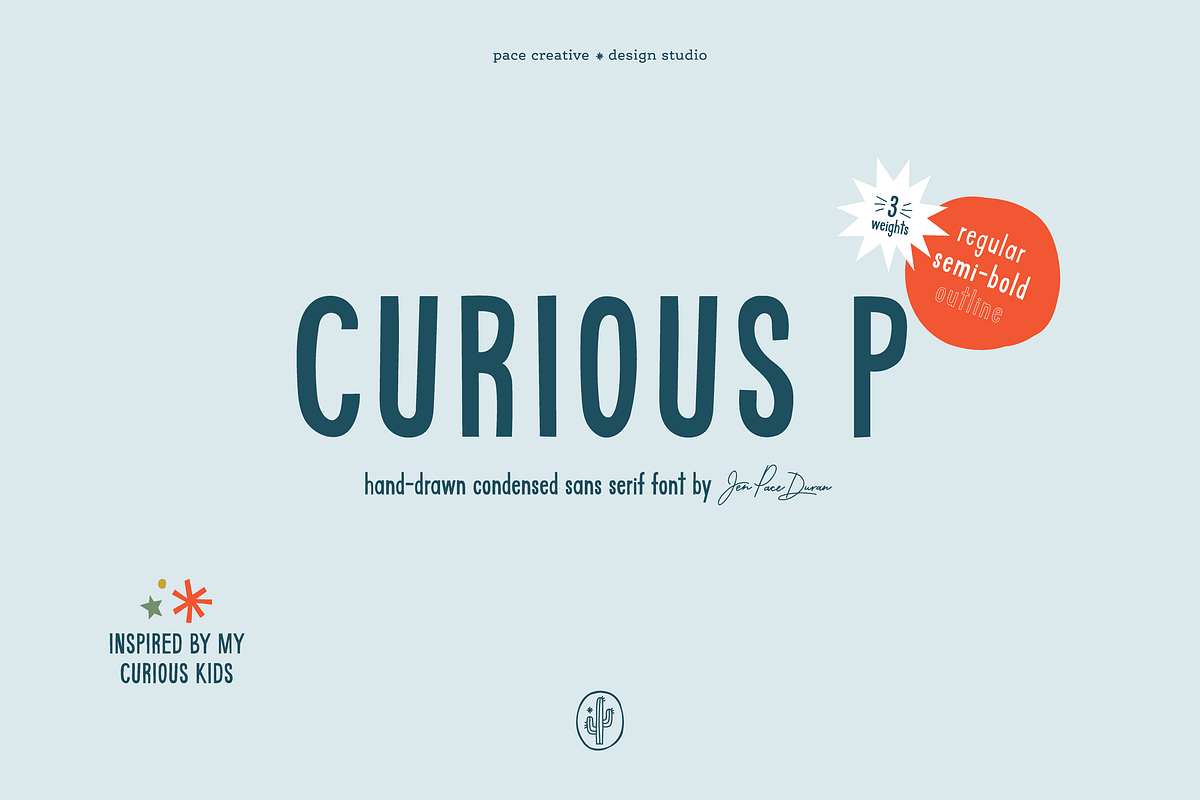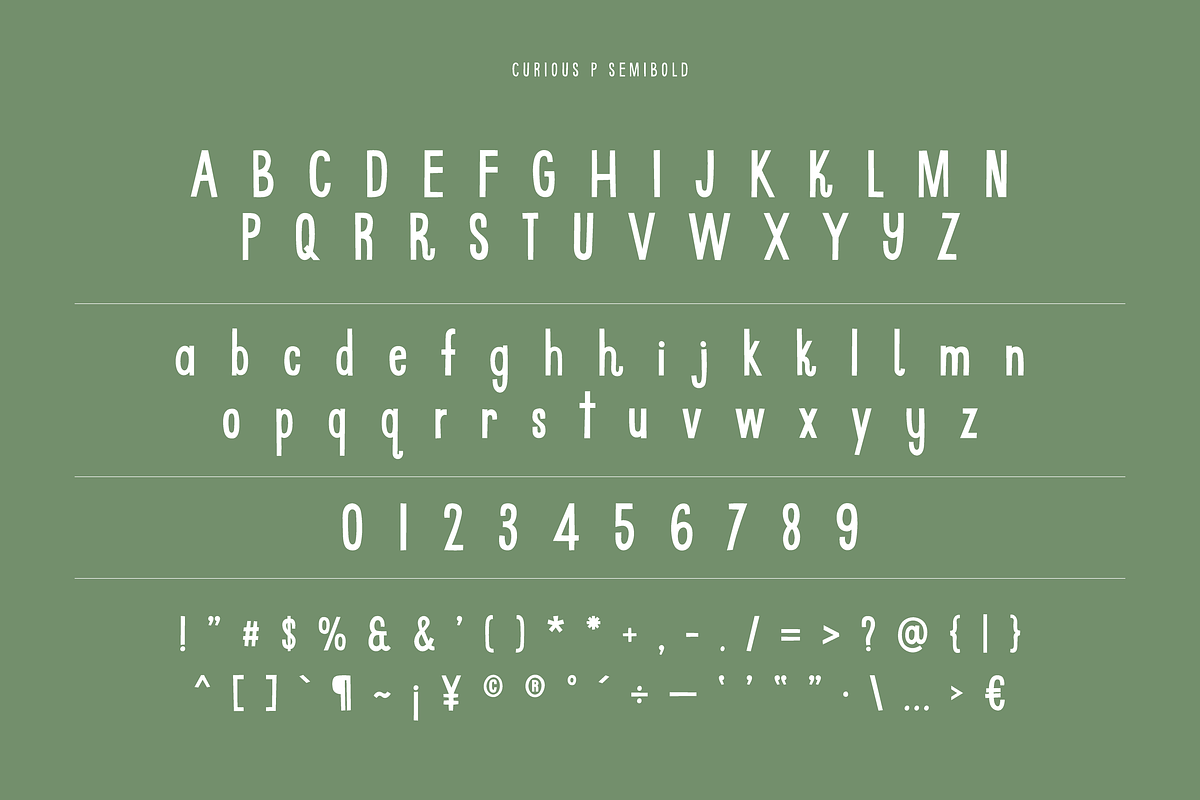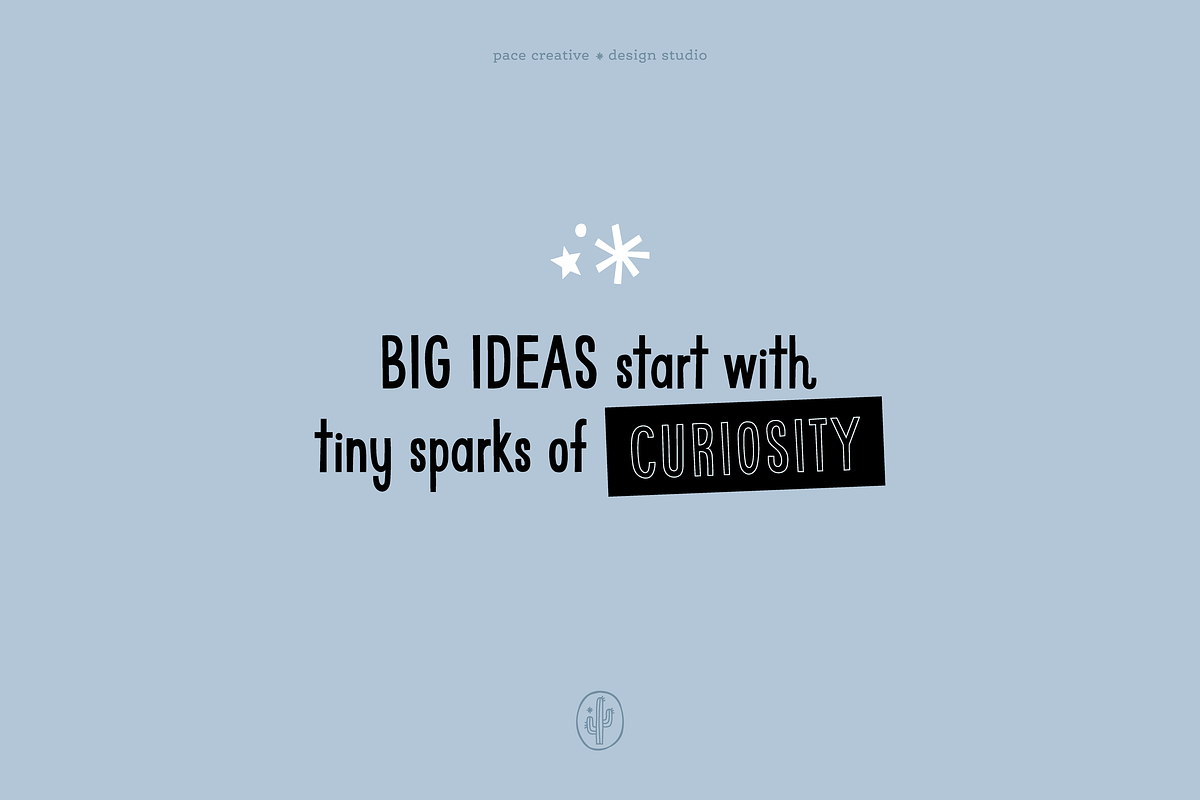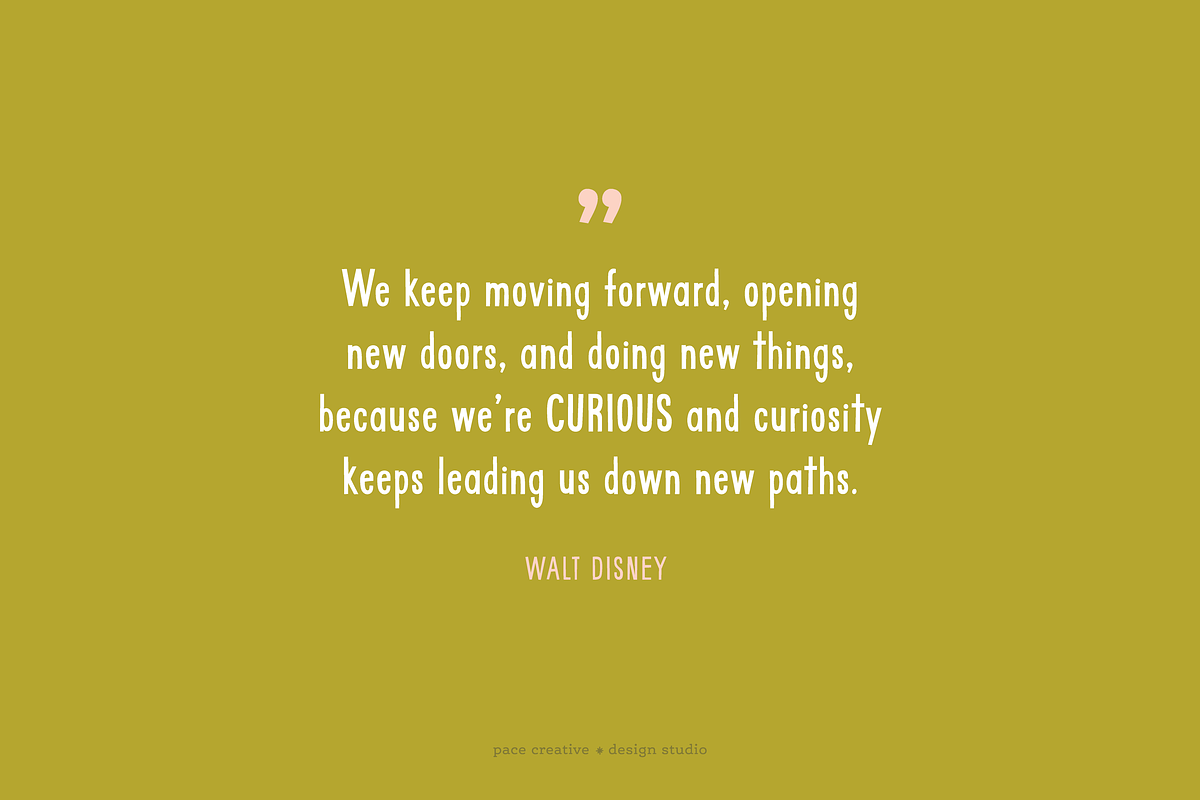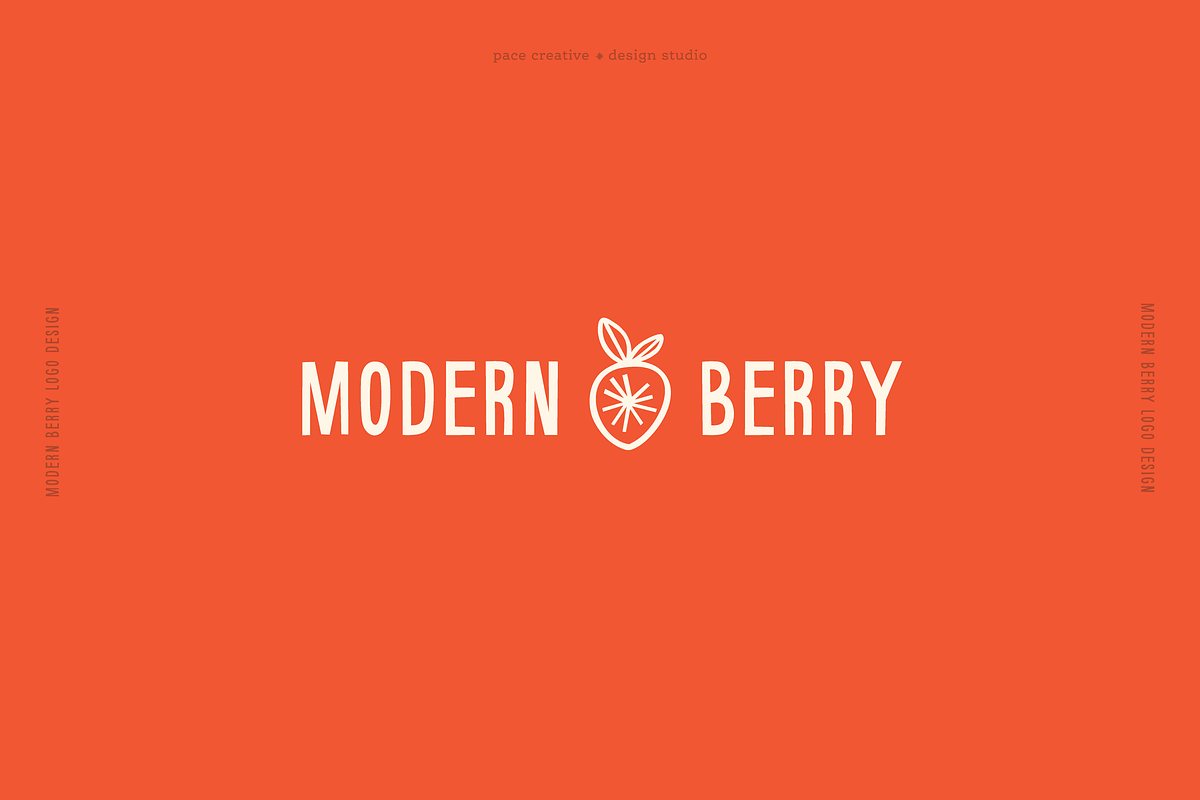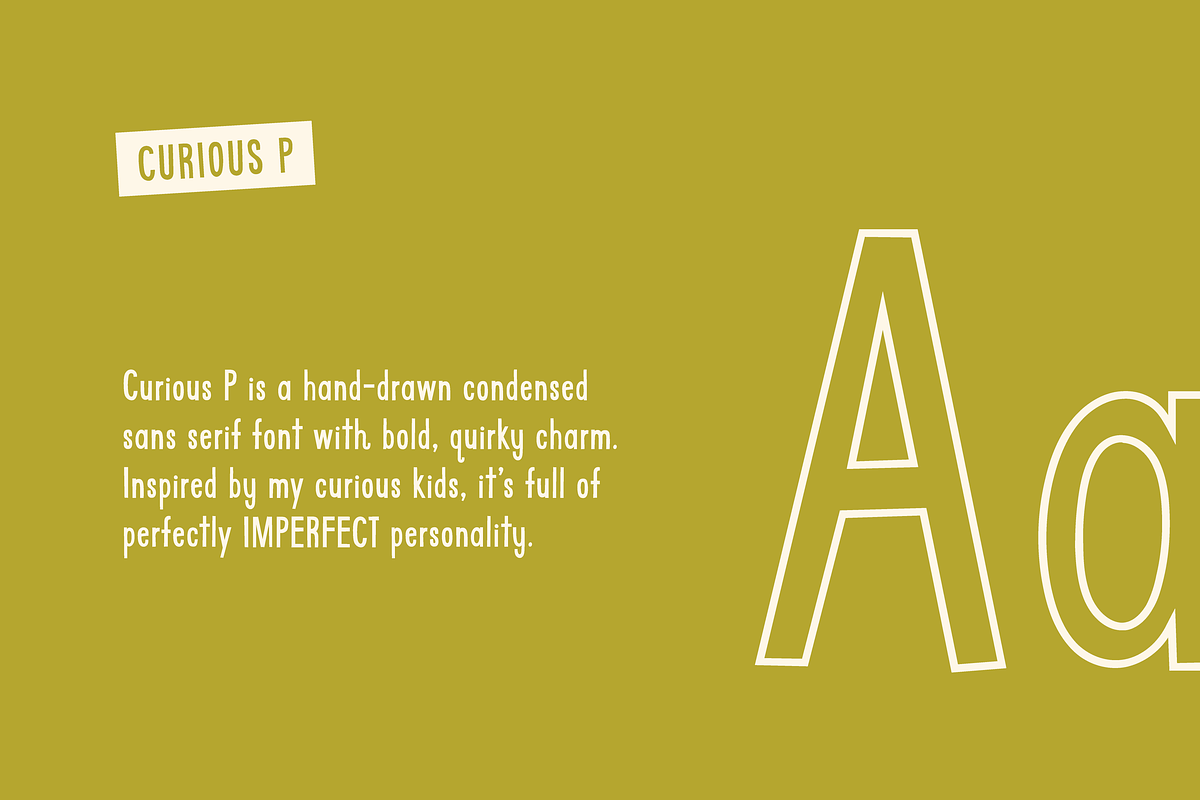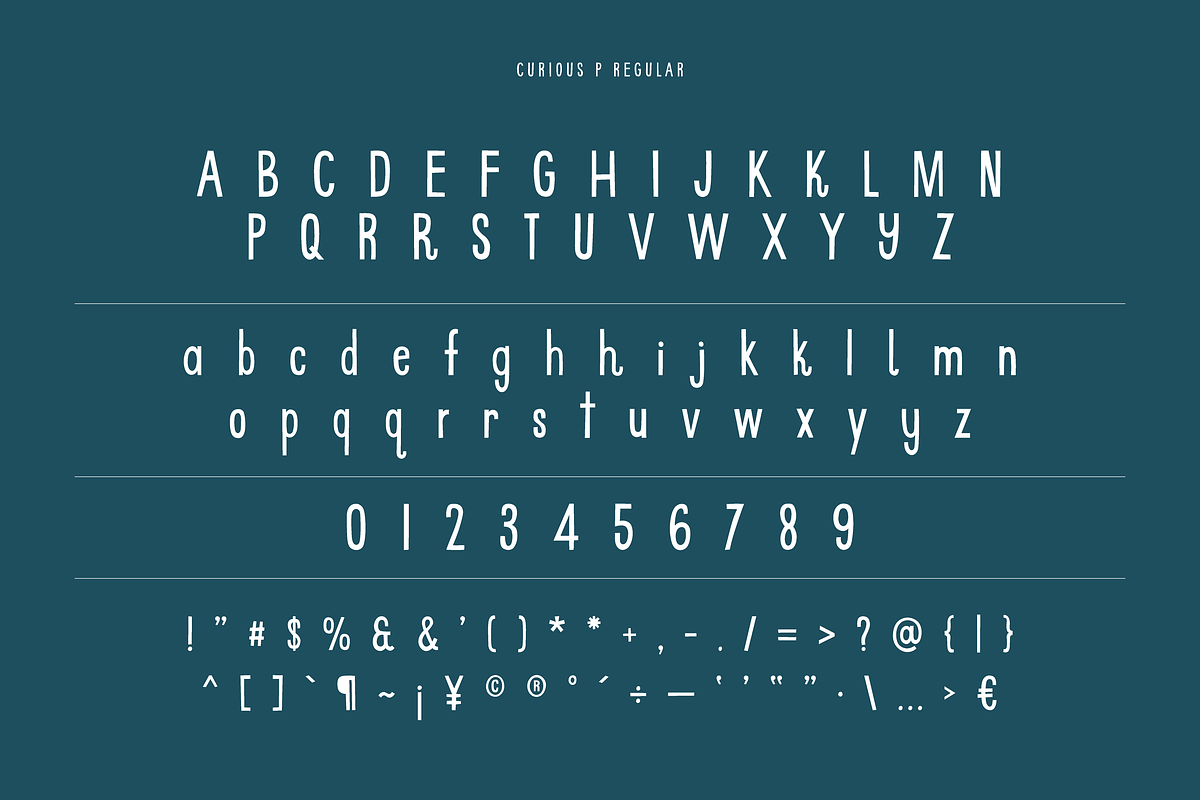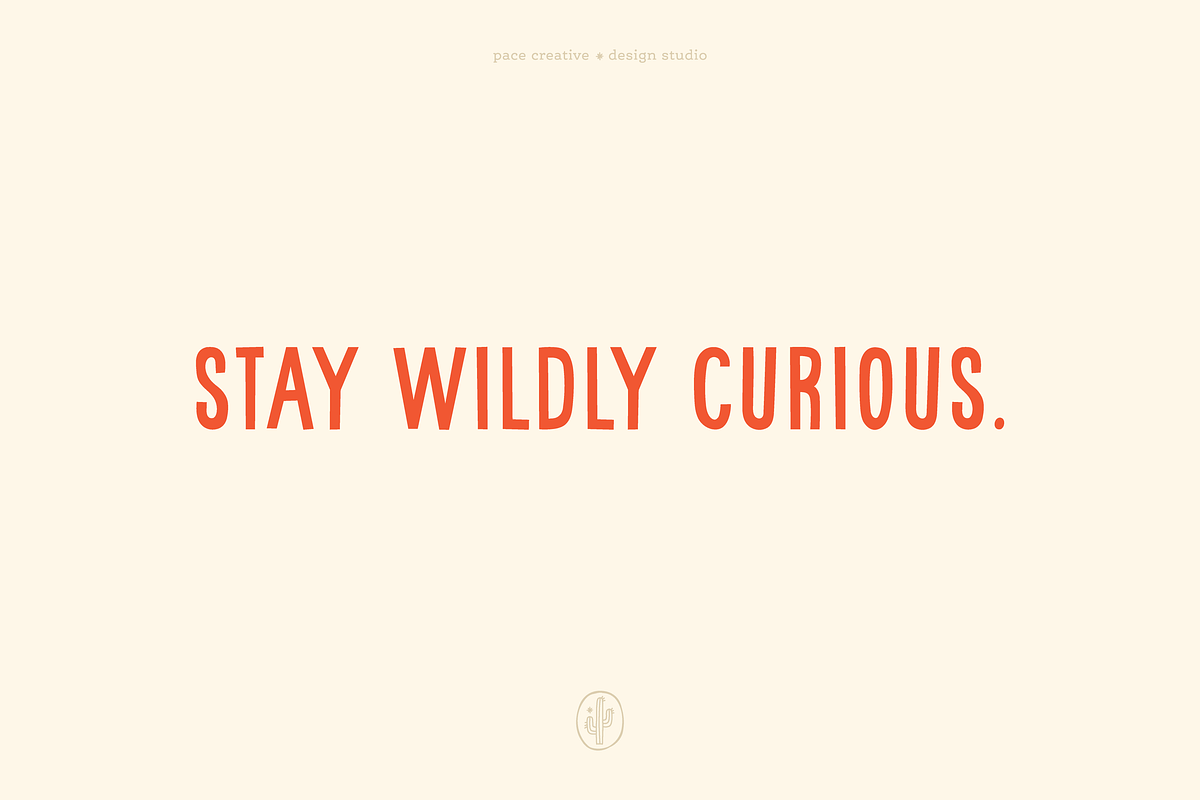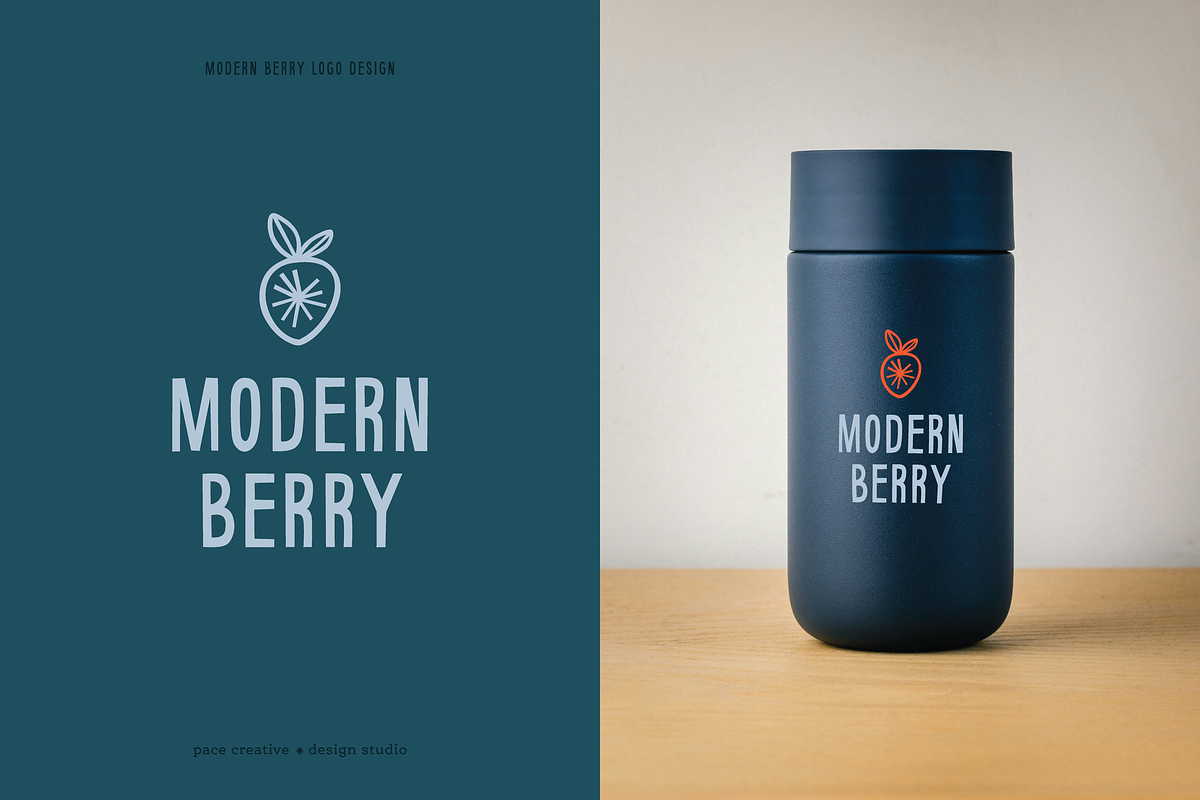
Curious P: A Hand-Drawn Font
Curious P is a hand-drawn condensed sans serif font that captures the magic of curiosity by bringing bold personality with a playful twist. Its tall letterforms and quirky details give it that perfectly imperfect, hand-crafted feel.
Crafted with love and inspired by my curious kids, this font celebrates their spirit, creativity, and imagination. It’s a tribute to those little moments where curiosity meets creativity, reminding us to stay playful, curious, and brave enough to explore. It adds charm and character to any creative project, from logos and packaging to social media and stationery.
- 3 Weights – Regular, Semi-Bold, and Outline
- Lowercase Characters
- Uppercase Characters
- Alternate Characters
- Special Characters
- Multilingual support for various languages